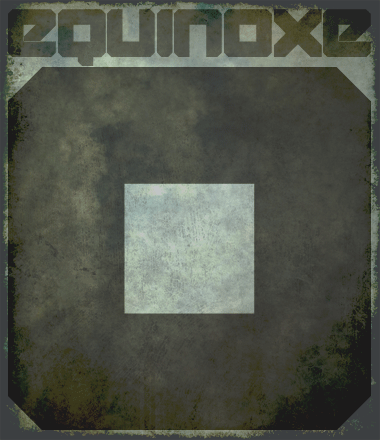
Cool and almost original looking sample.
10/10.
It sure makes a big, bold statement! Great sample. 10/10
I'm with the guys!
Like it so much! And a cool grungy poster.
Love, love this font, and perfect for my current project. I wish there was a set of capital letters though. I can improvise, but would love it if they were just part of the font. But still, wonderful font!
are you kidding me? this doesnt need upper or lower case. fact